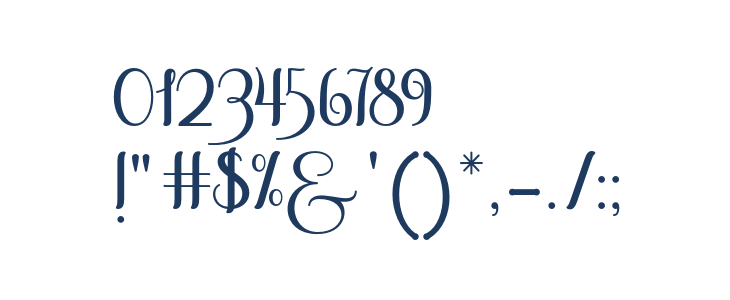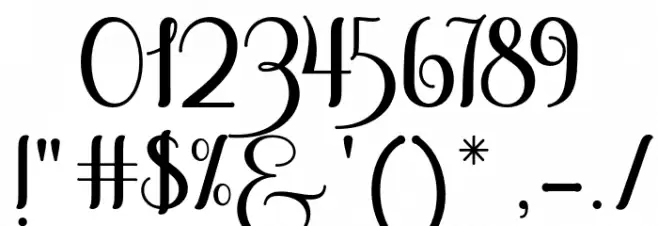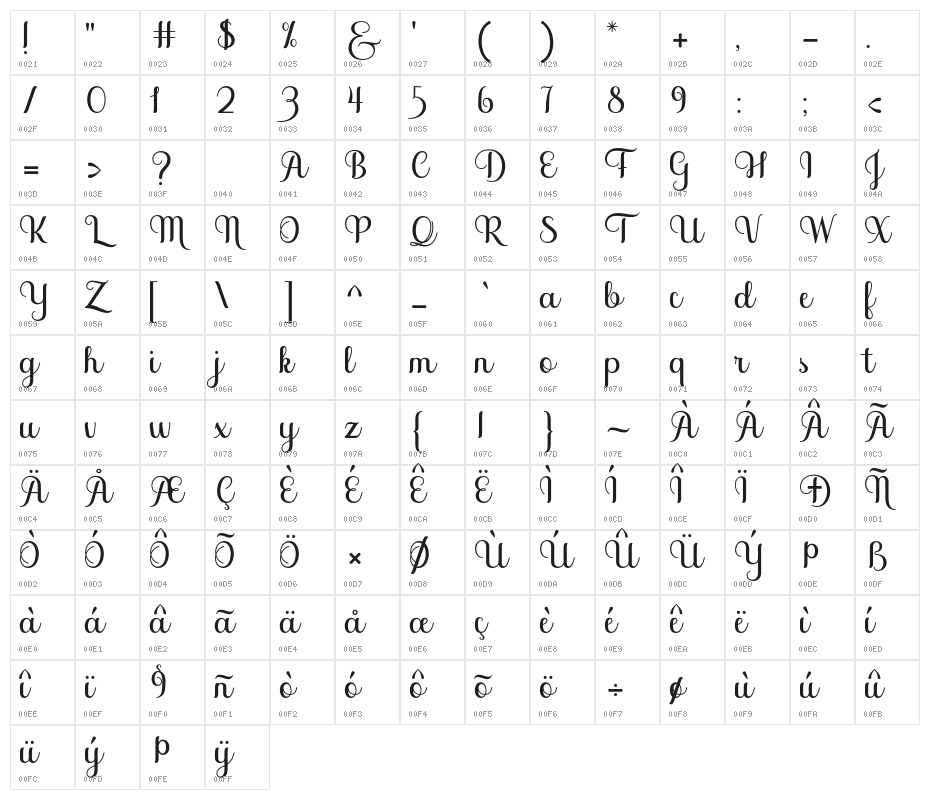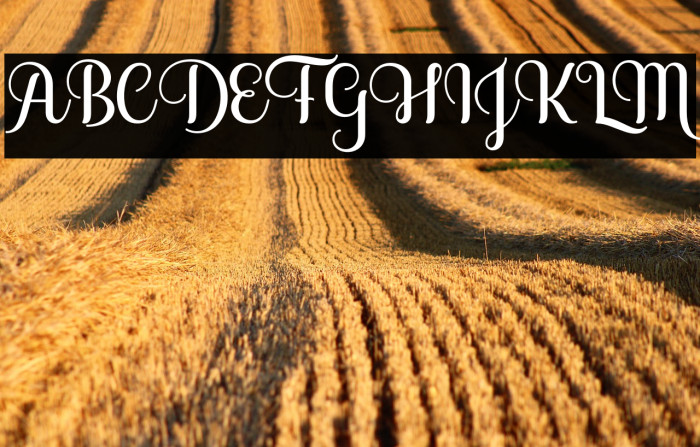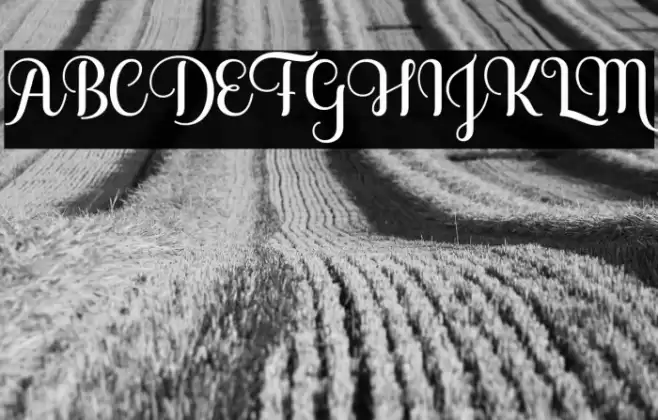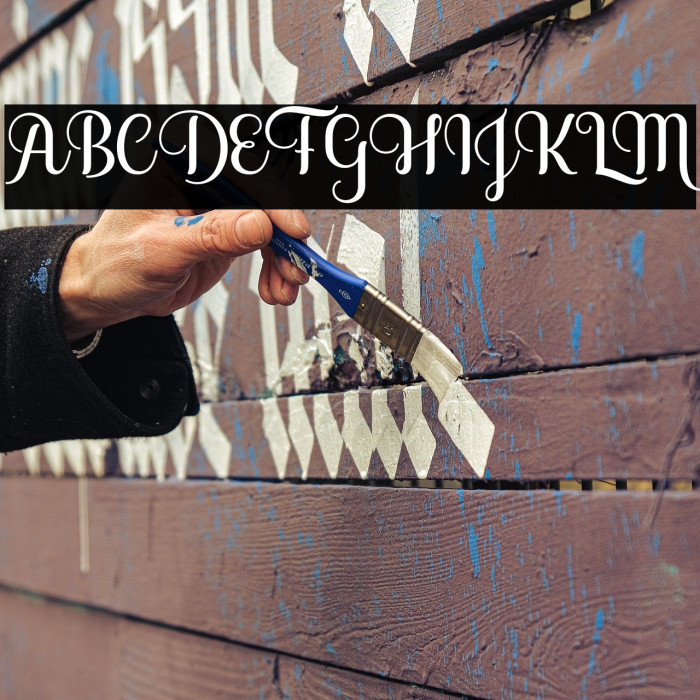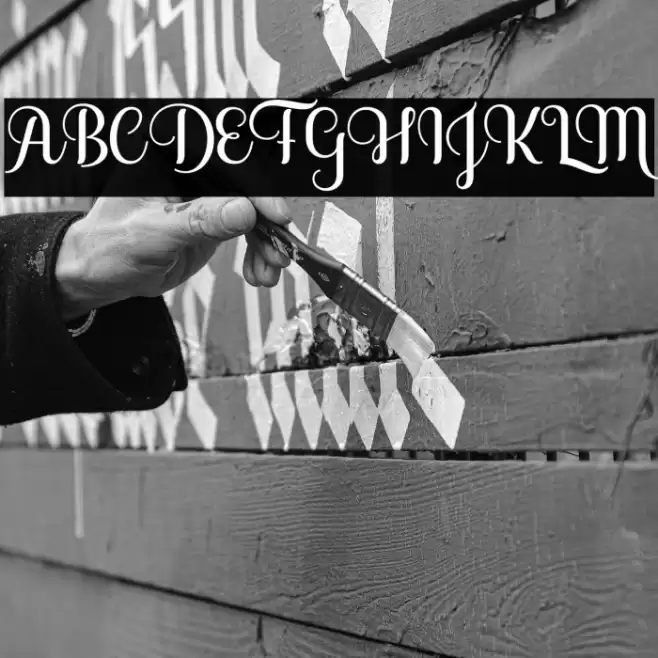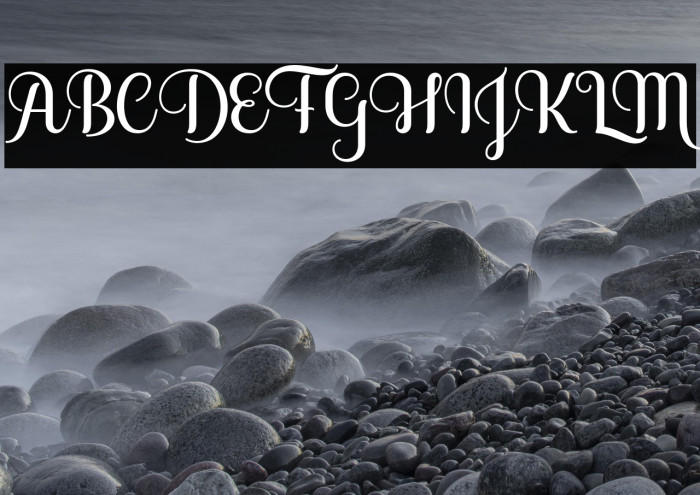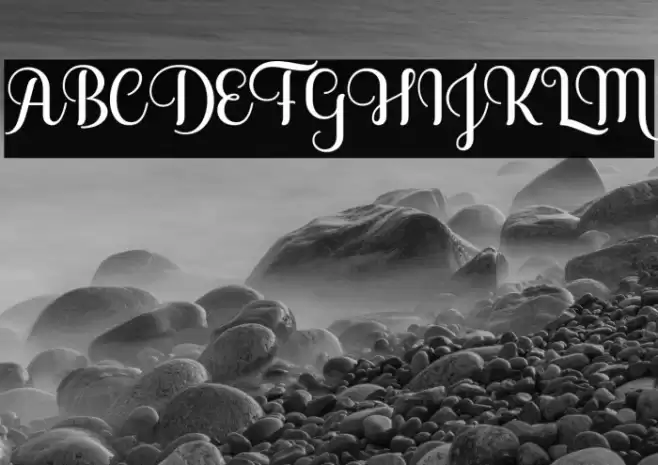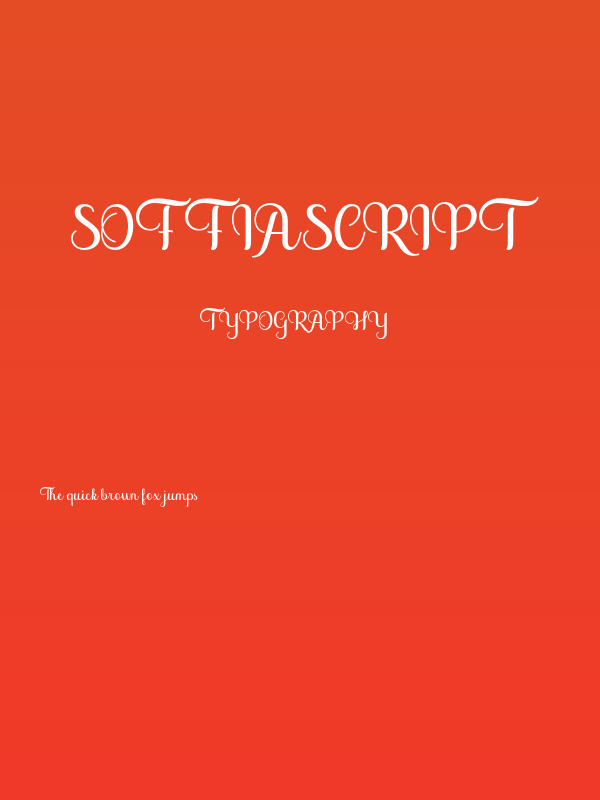
SoffiaScript Font
SoffiaScript Description
This elegant script font features fluid, cursive strokes that create a sense of sophistication and grace. The uppercase letters are characterized by their sweeping curves and intricate loops, while the lowercase letters maintain a consistent flow with gentle connections. The numerals are stylishly designed, complementing the overall aesthetic. Special characters are crafted with the same attention to detail, enhancing the font's versatility. The font's smooth lines and balanced proportions make it suitable for a variety of design applications.
| Proposed Projects | Ideal for wedding invitations, elegant branding, greeting cards, and decorative signage. |